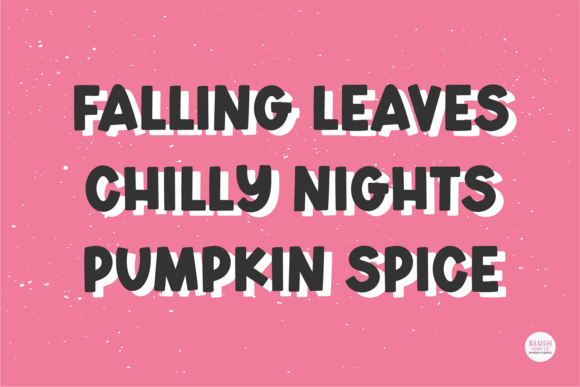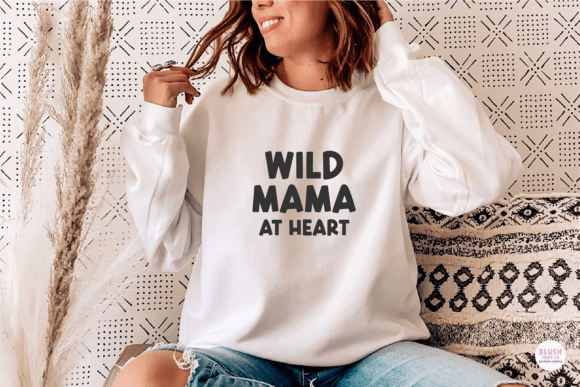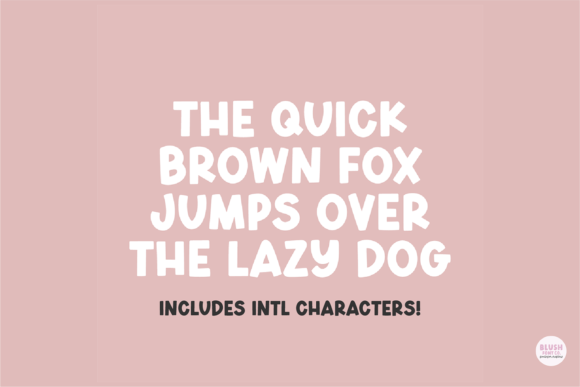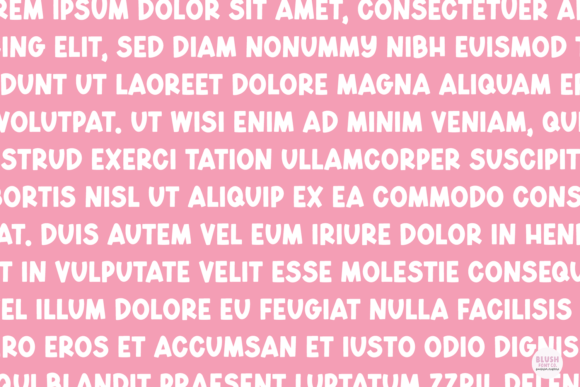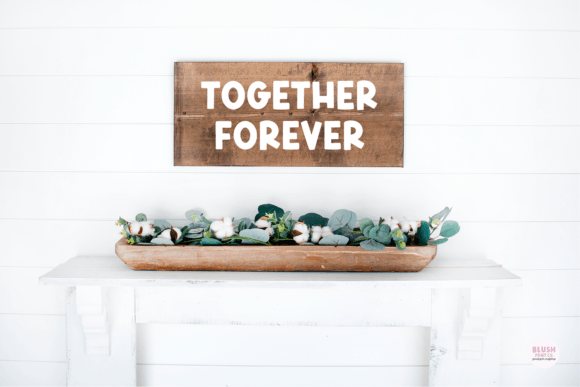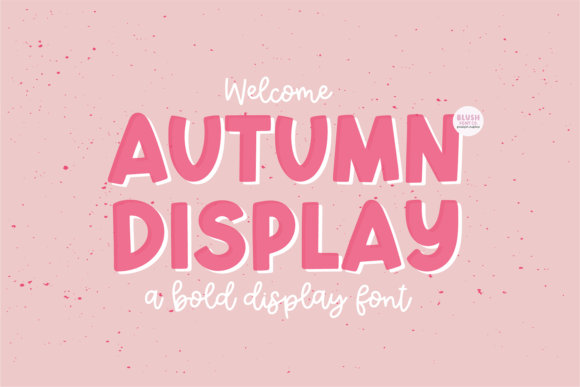
Introducing Autumn Display Font: The Perfect Addition to Your Design Arsenal
Are you tired of using the same old fonts in your designs? Look no further than the Autumn Display Font, a simple yet bold retro font that’s perfect for adding a touch of nostalgia to your social media graphics, crafty projects, and more. In this article, we’ll take a closer look at the features and benefits of Autumn Display Font, and explore how you can use it to elevate your designs.
What is Autumn Display Font?
Autumn Display Font is a carefully crafted font that’s designed to bring a sense of warmth and coziness to your designs. With its bold and retro aesthetic, this font is perfect for creating eye-catching graphics that are sure to grab attention. Whether you’re designing t-shirts, birthday invitations, or social media posts, Autumn Display Font is the perfect choice.
Key Features of Autumn Display Font
So what sets Autumn Display Font apart from other fonts? Here are just a few of its key features:
• Simple yet bold design: Autumn Display Font has a clean and simple design that’s both easy to read and visually striking.
• Retro aesthetic: With its classic look and feel, Autumn Display Font is perfect for adding a touch of nostalgia to your designs.
• Basic punctuation marks and international characters: This font includes a range of basic punctuation marks and international characters, making it versatile and easy to use.
How to Use Autumn Display Font
Autumn Display Font is incredibly versatile, and can be used in a wide range of design projects. Here are just a few ideas to get you started:
• T-shirts and apparel: Use Autumn Display Font to create eye-catching designs for t-shirts, hoodies, and other apparel.
• Birthday invitations and party decor: Add a touch of warmth and coziness to your birthday invitations and party decor with Autumn Display Font.
• Social media graphics: Use Autumn Display Font to create bold and eye-catching social media graphics that are sure to grab attention.
• Crafty projects: From scrapbooking to card making, Autumn Display Font is the perfect choice for a wide range of crafty projects.
Benefits of Using Autumn Display Font
So why choose Autumn Display Font for your design projects? Here are just a few benefits:
• Easy to read: Autumn Display Font is clean and simple, making it easy to read even at small sizes.
• Versatile: With its range of basic punctuation marks and international characters, Autumn Display Font is versatile and easy to use.
• Unique and eye-catching: Autumn Display Font has a unique and eye-catching design that’s sure to grab attention.
Tips for Getting the Most Out of Autumn Display Font
Here are a few tips for getting the most out of Autumn Display Font:
• Experiment with different colors: Autumn Display Font looks great in a range of colors, so don’t be afraid to experiment and find the perfect hue for your design.
• Pair with other fonts: Autumn Display Font pairs well with a range of other fonts, so try combining it with other fonts to create a unique look.
• Use it consistently: To create a cohesive look, try using Autumn Display Font consistently throughout your design.
Autumn Display Font is a simple yet bold retro font that’s perfect for adding a touch of warmth and coziness to your designs. With its range of basic punctuation marks and international characters, this font is versatile and easy to use. Whether you’re designing t-shirts, birthday invitations, or social media graphics, Autumn Display Font is the perfect choice. So why wait? Download Autumn Display Font today and start creating eye-catching designs that are sure to grab attention.